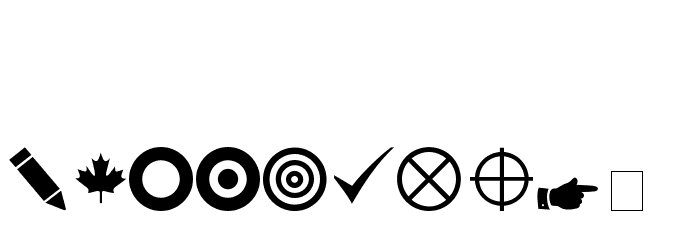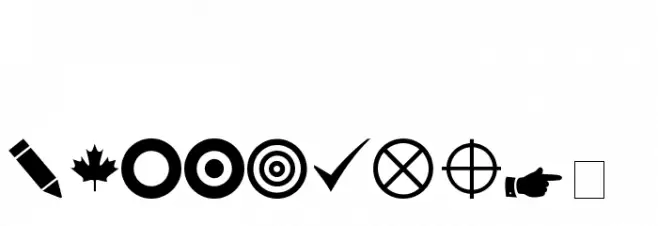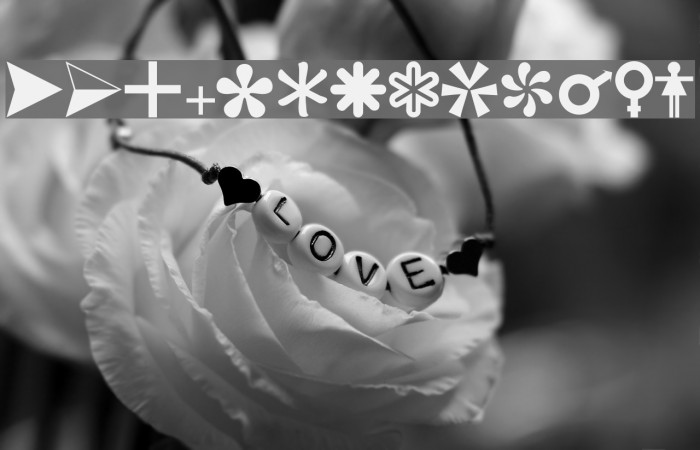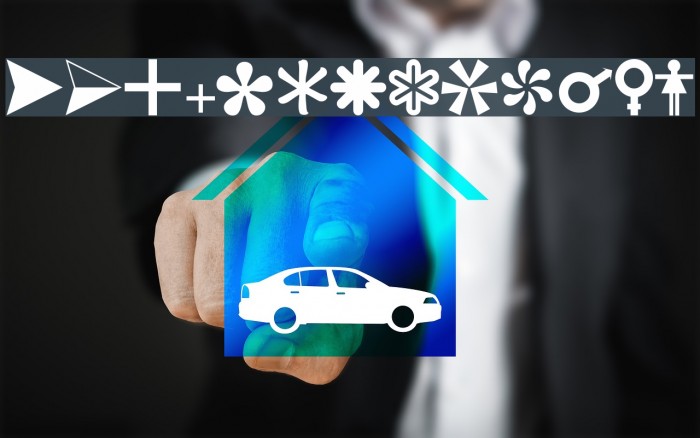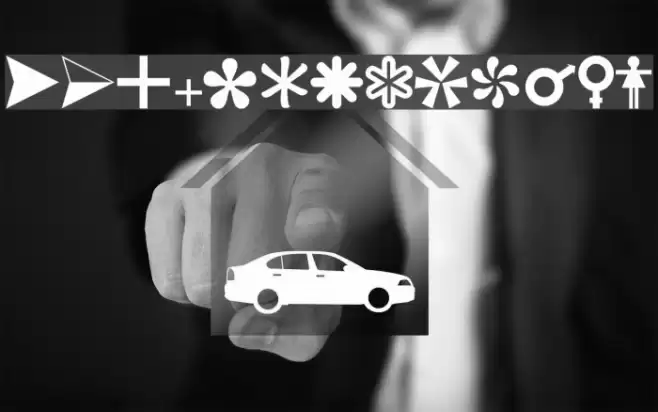
Carr Dingbats 1 Font
Carr Dingbats 1 Description
This collection of symbols features a variety of simple, bold shapes and icons that are ideal for decorative purposes. The set includes arrows, geometric shapes, gender symbols, and other miscellaneous icons like a light bulb and a pencil. Each symbol is rendered in a solid, black silhouette style, providing a strong visual impact. The icons are designed with clean lines and a uniform thickness, making them versatile for various design applications. The consistent style across the set ensures a cohesive look when used together, while the diversity of symbols offers flexibility for different thematic needs.
| Use Case | Logos, Decorative elements, Infographics |
| Proposed Projects | Ideal for creating infographics, enhancing presentations, designing logos, or adding decorative elements to digital and print media. |